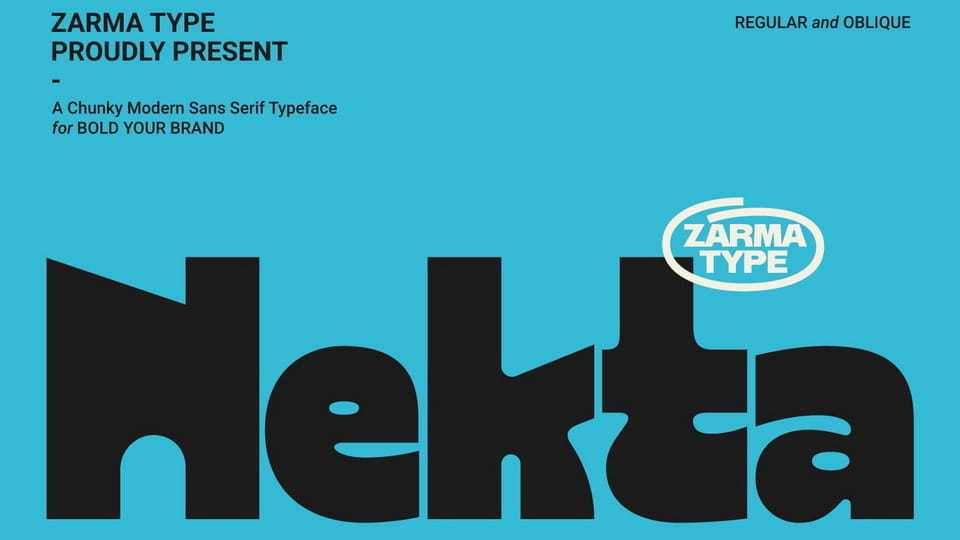
Download Nekta font, a modern sans serif typeface with confident weight, rounded corners, and playful geometry that turns short words into powerful headlines.
Designer: Zarma Type Foundry